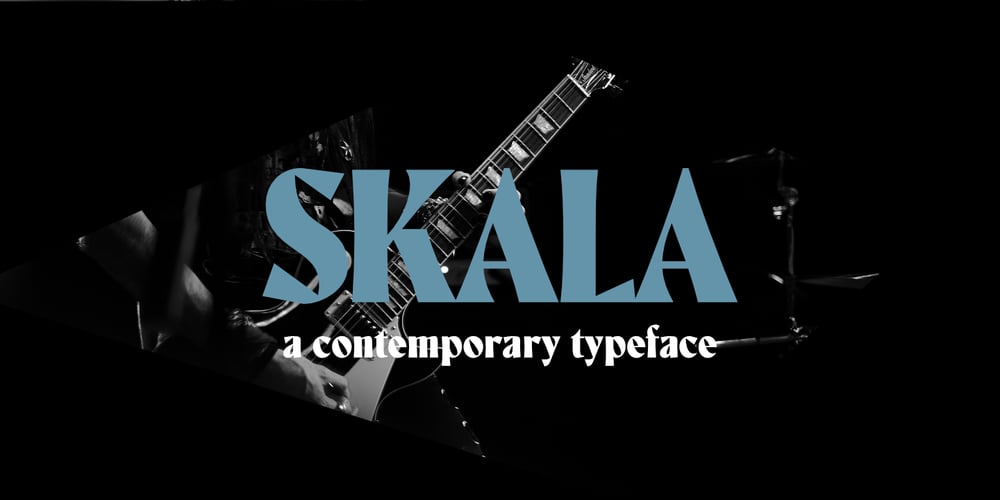
Skala Display
Skala Display font
Skala Display Font Family was designed by Muhammad Hastian and published by Hazztype. Skala Display contains 2 styles and family package options. Skala is a contemporary display, semi condensed, semi sans serif. It has unique diagonal stress, pointy bowls, and terminals, mixing straight and bowed stems. The unique style of Skala makes it look masculine, tough, and strong.Inspired by earlier semi-serif typefaces, Skala mixed and matched serif and sans serif characters that bring attention to any design which makes this display font a great option for logos, labels, signs, headlines, business cards, etc.